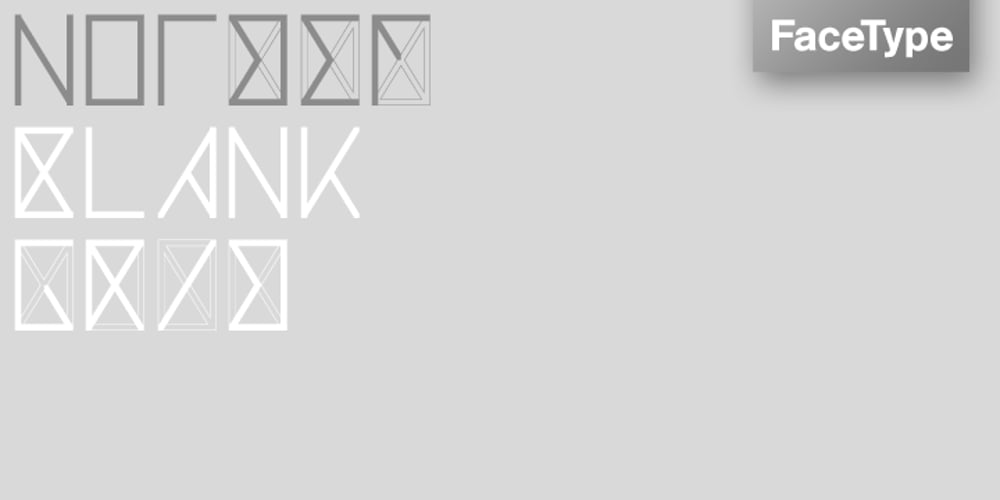
Notdef
Notdef font
Notdef Font Family was designed by Marcus Sterz and published by FaceType. Notdef contains 2 styles and family package options. Notdef is an uncompromising experiment, based on the common “.notdef” symbol.